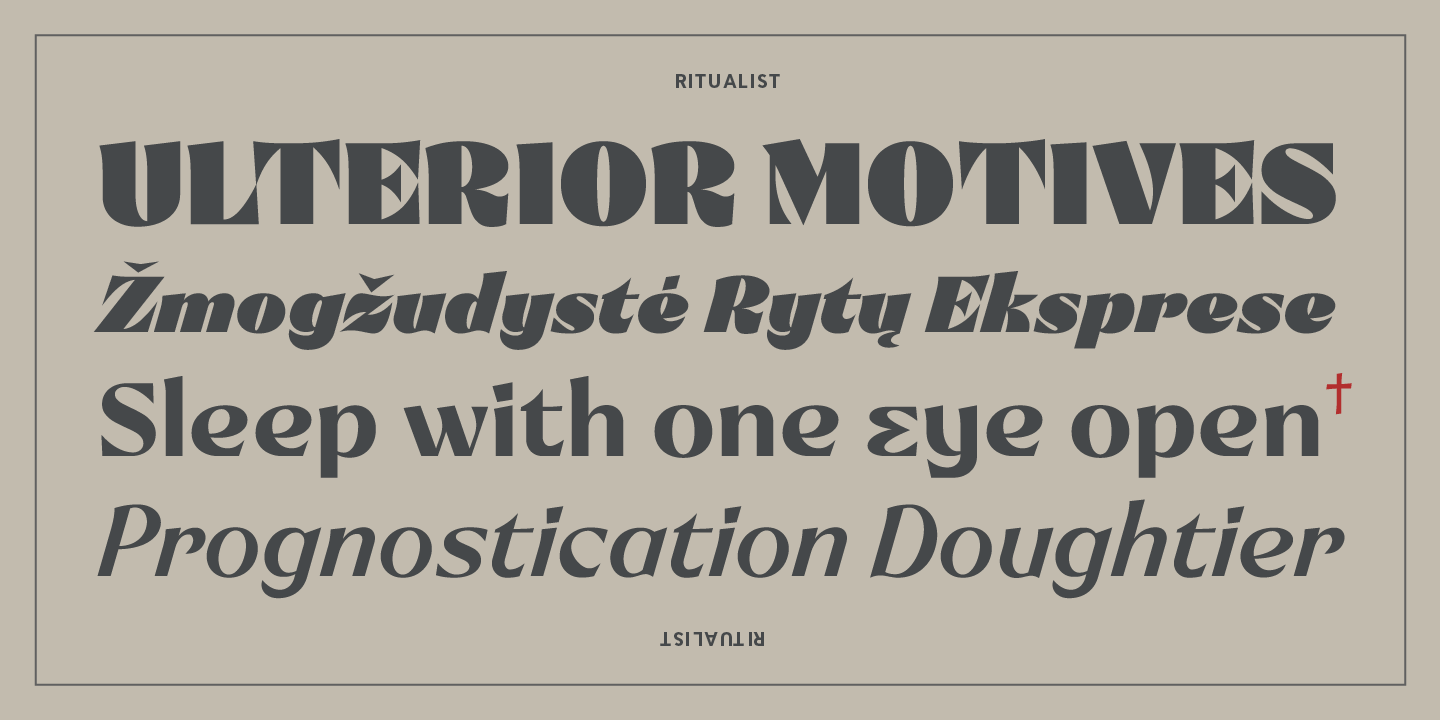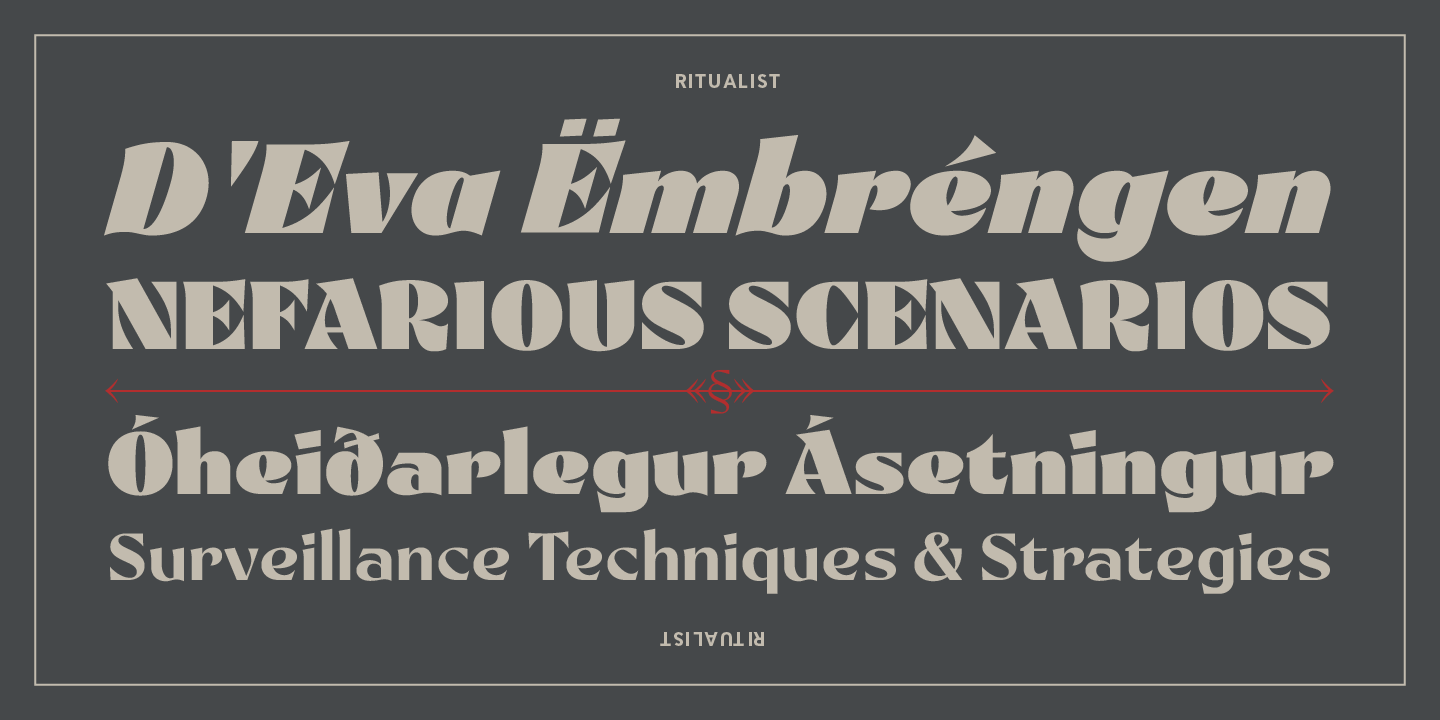
About Ritualist
Ritualist by Justin Penner takes inspiration from high-contrast wedge serif designs, like the 19th century typeface De Vinne, but viewed through a macabre lens. This seriously fascinating design is defined by its infinitely sharp points, and some…